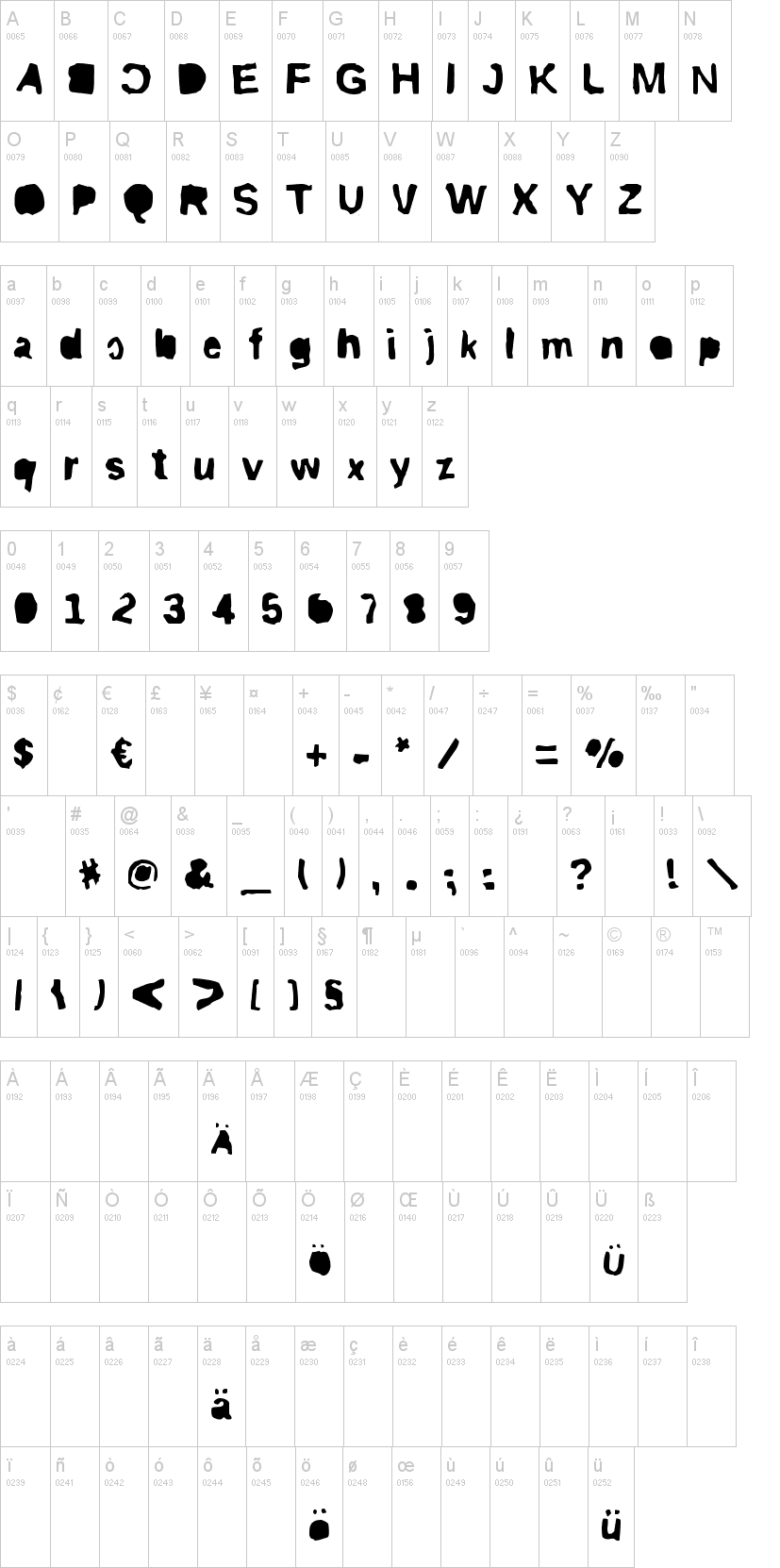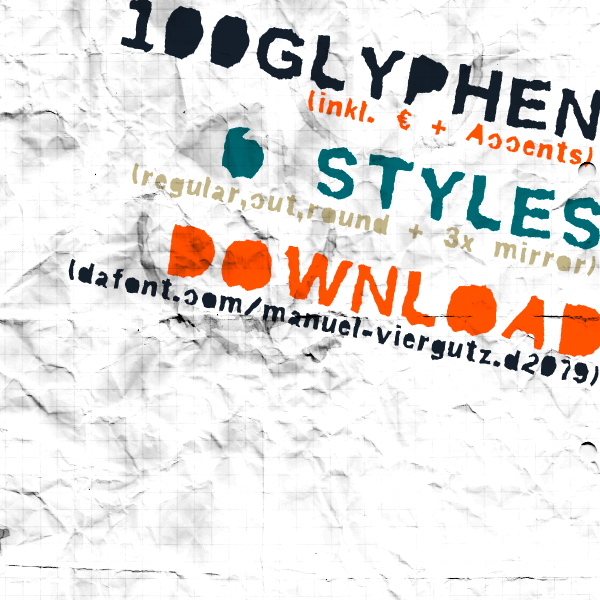
ripTRASHcutMIRROR.ttfripTRASHmirror.ttfripTRASH.ttfripTRASHcut.ttfripTRASHround.ttfNote of the authorHeadline Font / Display Font / Raw Handmade Font "rip TRASH"
with 6 stlyes (regular, mirror, cut, cutMIRROR, round, roundMIRROR) & 100 glyphs incl. accents &